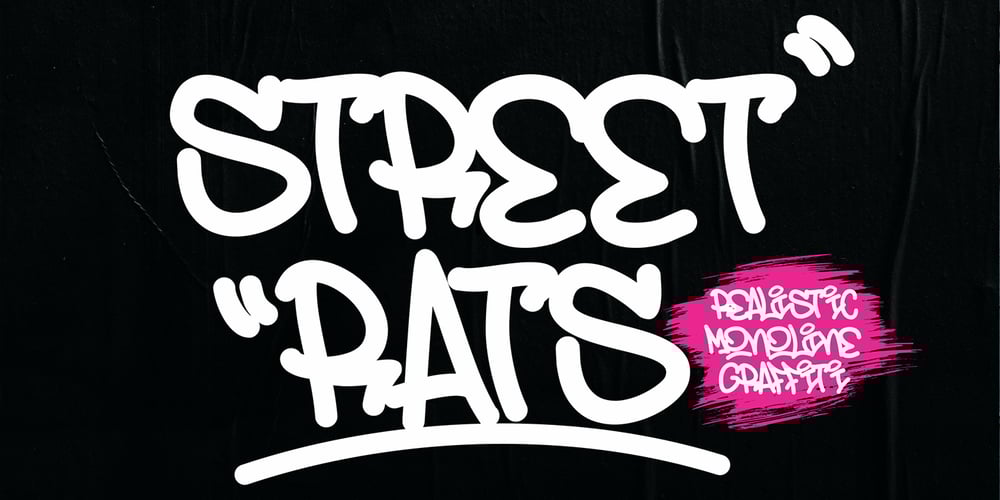
Street Rats Monoline Font Family was designed by Sipanji and published by Sipanji21. Street Rats Monoline contains 1 styles and family package options. Street Rats is a Handwritten font with a Realistic monoline graffiti style, with awesome swash perfect for your awesome urban designs. It will elevate a wide range of design projects to the highest levels, be it branding, headings, designs, invitations, signatures, logos, labels, and much more!Features: Uppercase Punctuation Swash PUA Encoded open Support for MAC or PC Simple installation for Adobe Illustrator, Corel Draw, Photoshop, or Procreate (New Updated) That’s it! If you have any questions don’t hesitate to ask!Stay Classy!